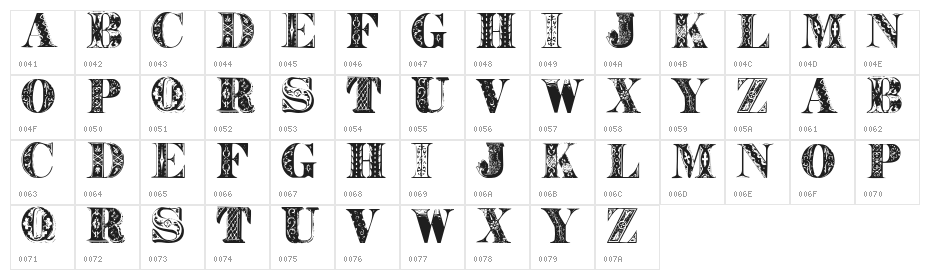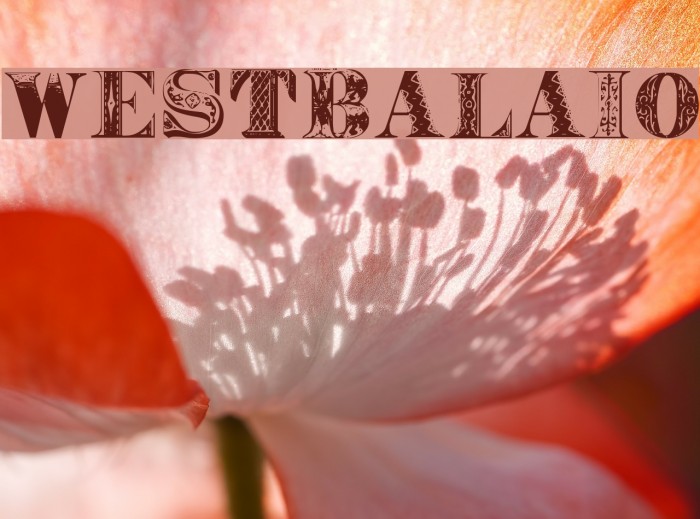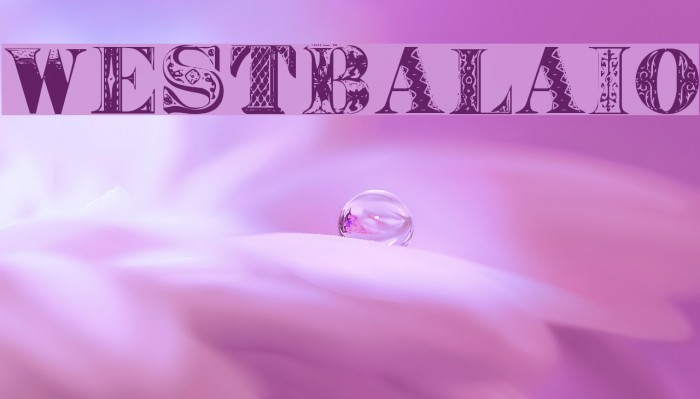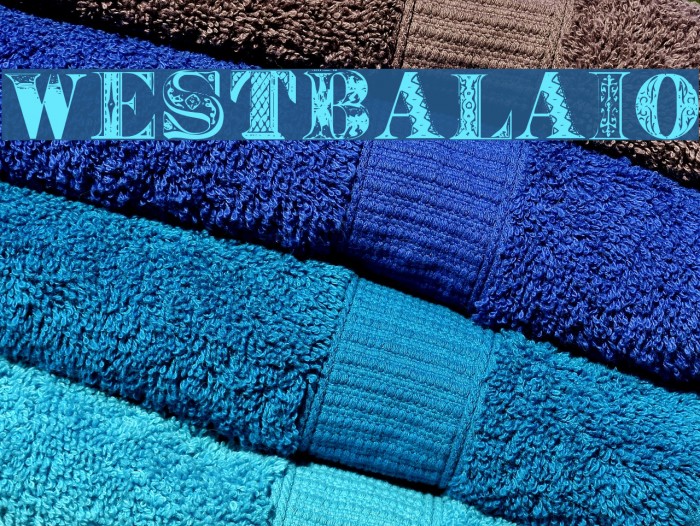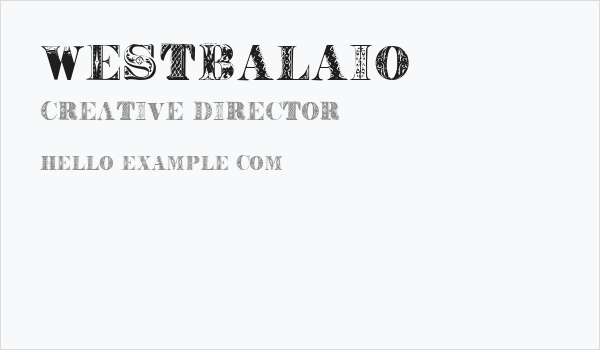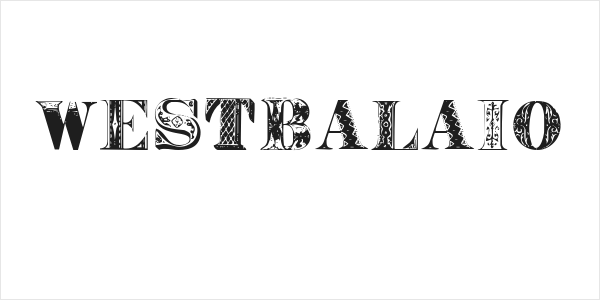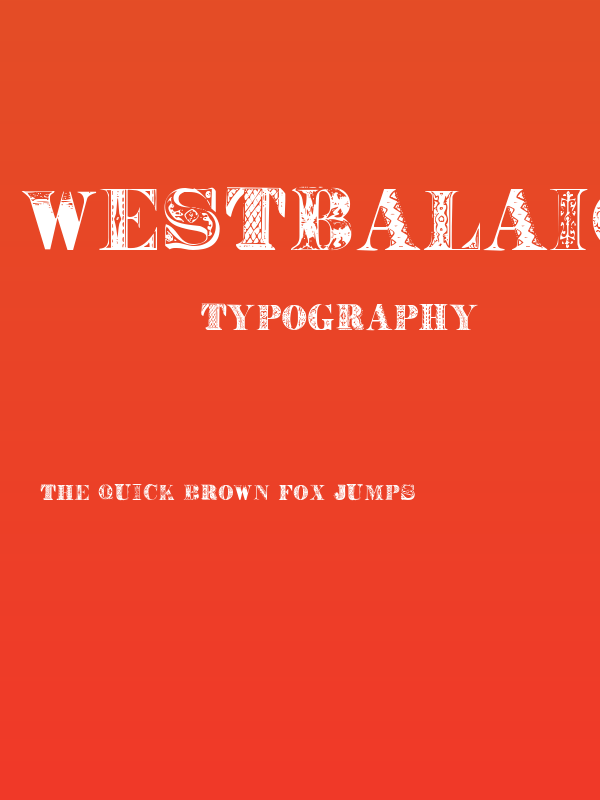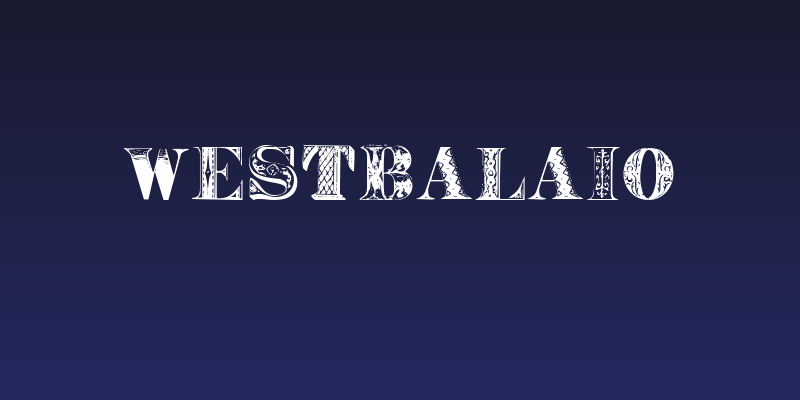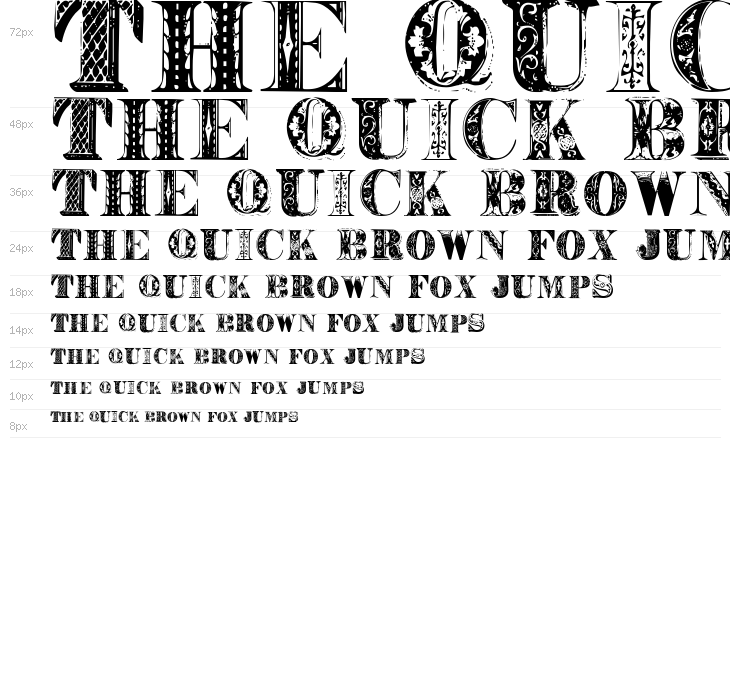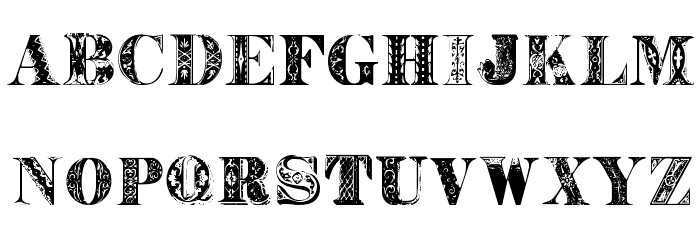
WestBalaio Font
WestBalaio Description
This font is a bold and decorative typeface that features intricate patterns and textures within each letterform. The uppercase letters are adorned with detailed embellishments, giving them a vintage and ornate appearance. The design is reminiscent of old Western or circus-style typography, with a playful yet sophisticated flair. The font's unique style makes it stand out, with each character offering a distinct visual experience. The intricate detailing within the letters suggests a handcrafted quality, making it suitable for projects that require a touch of elegance and nostalgia.
| Proposed Projects | Ideal for posters, signage, branding, and any project requiring a vintage or Western theme. |